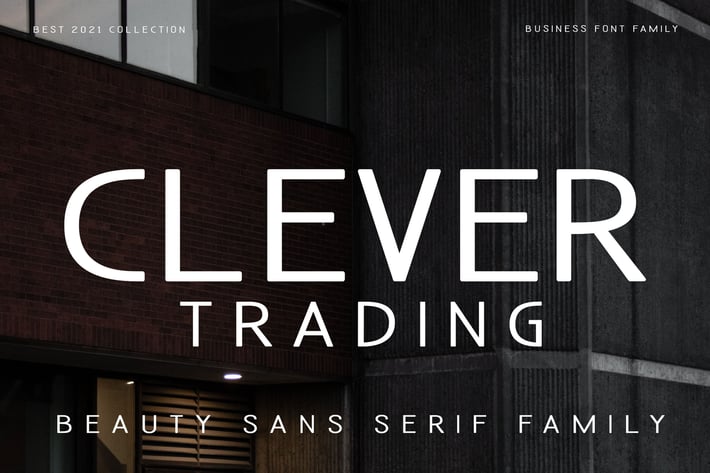
Clever Trading Business Font
Clever Trading is elegant and modern sans serif font. It can easily be matched to an incredibly large set of projects, so add it to your creative ideas and notice how it makes them stand out!